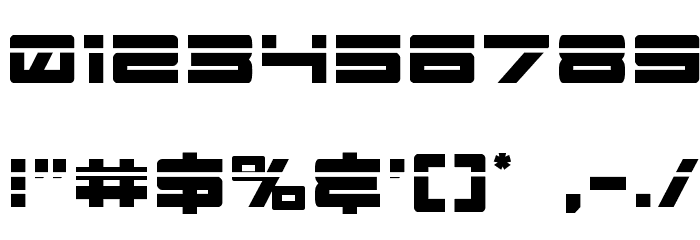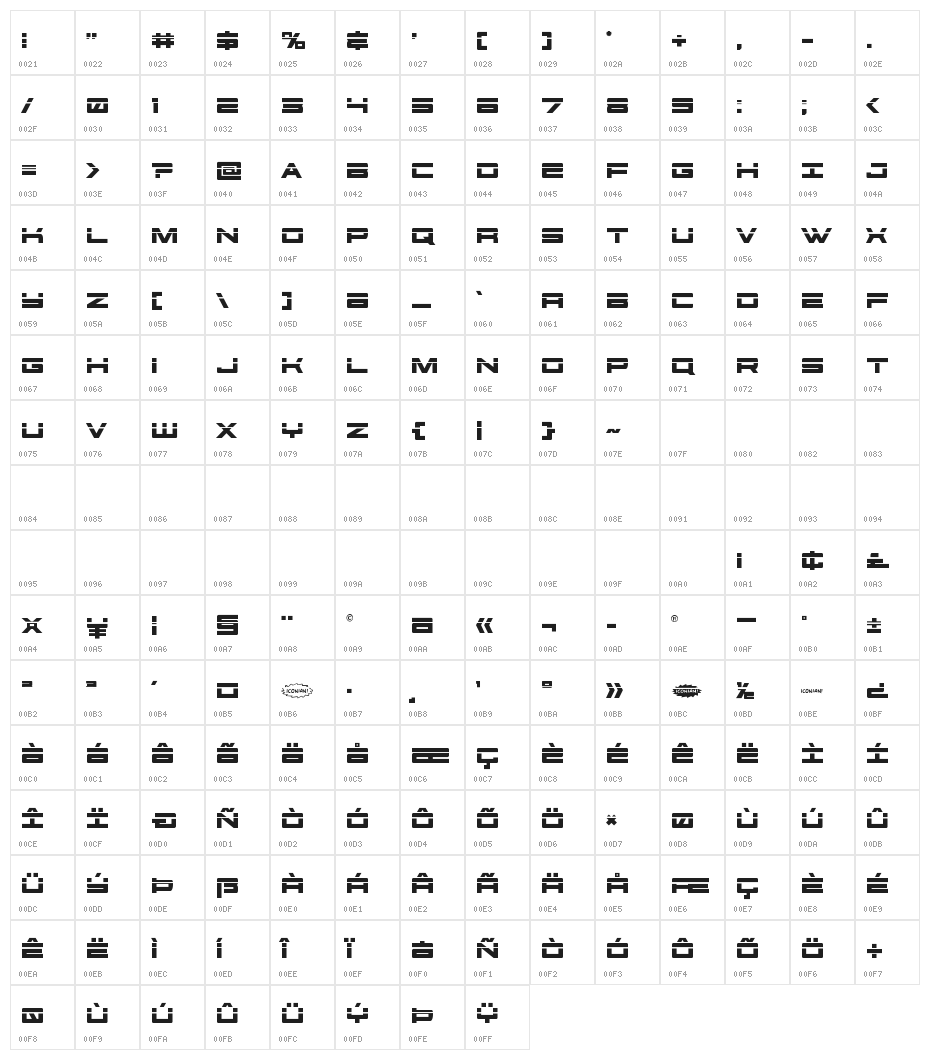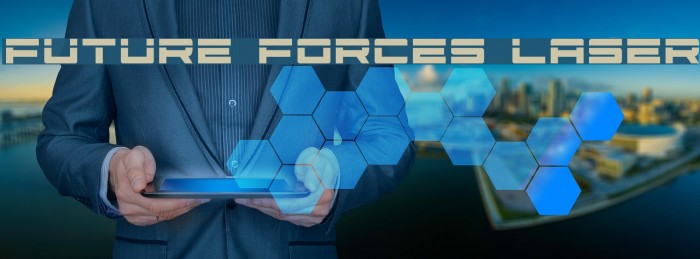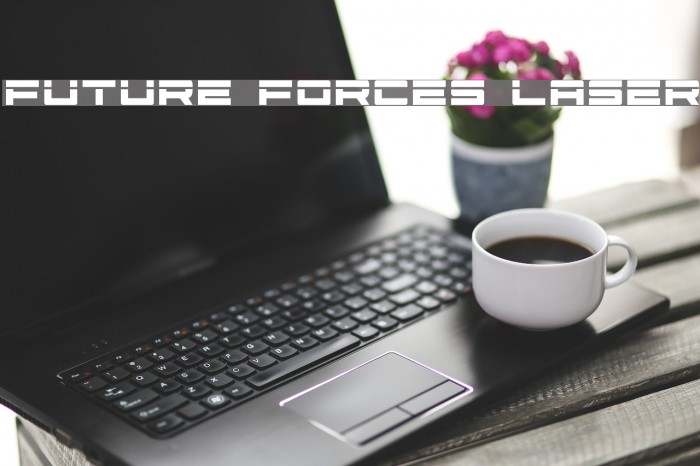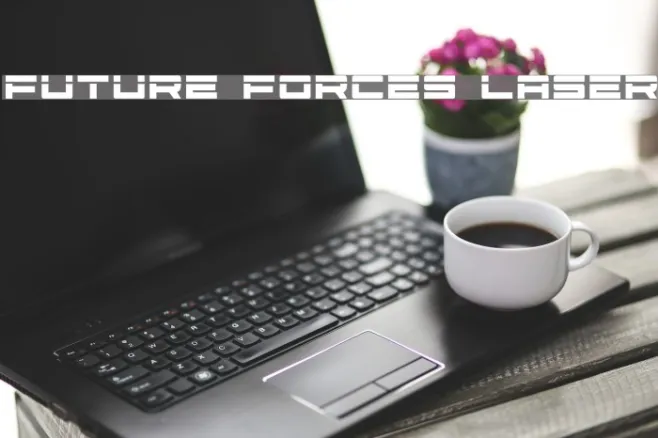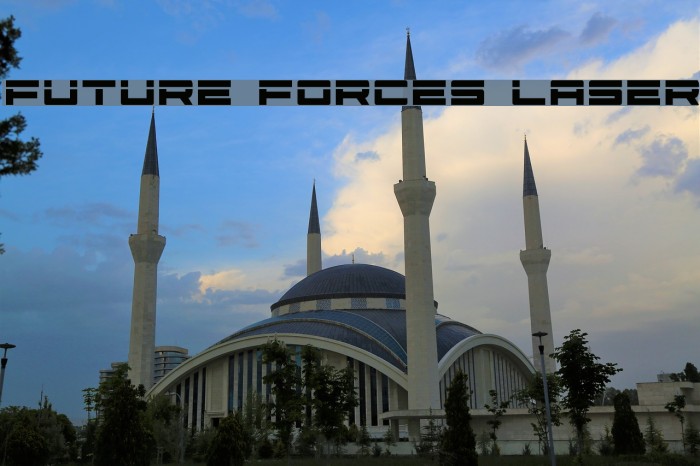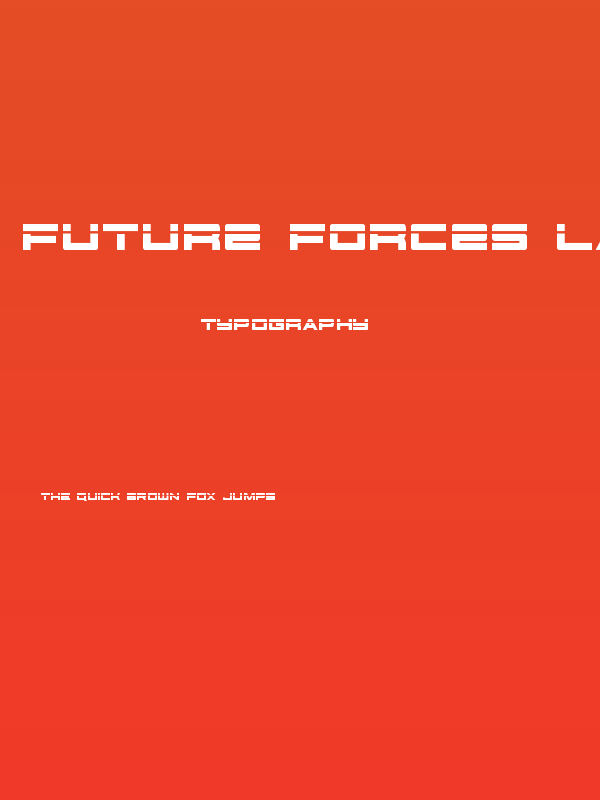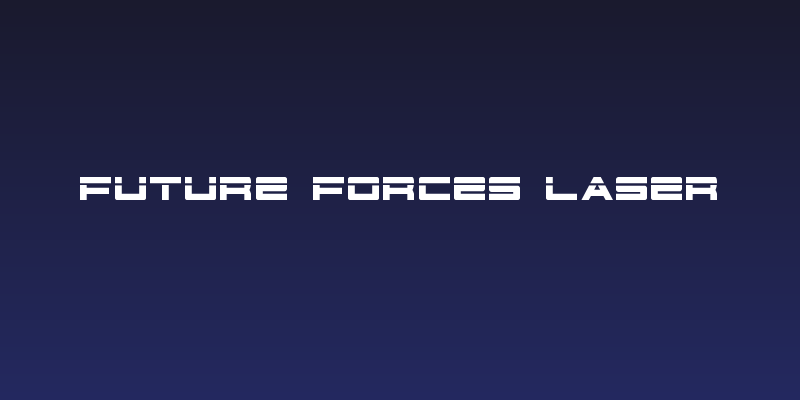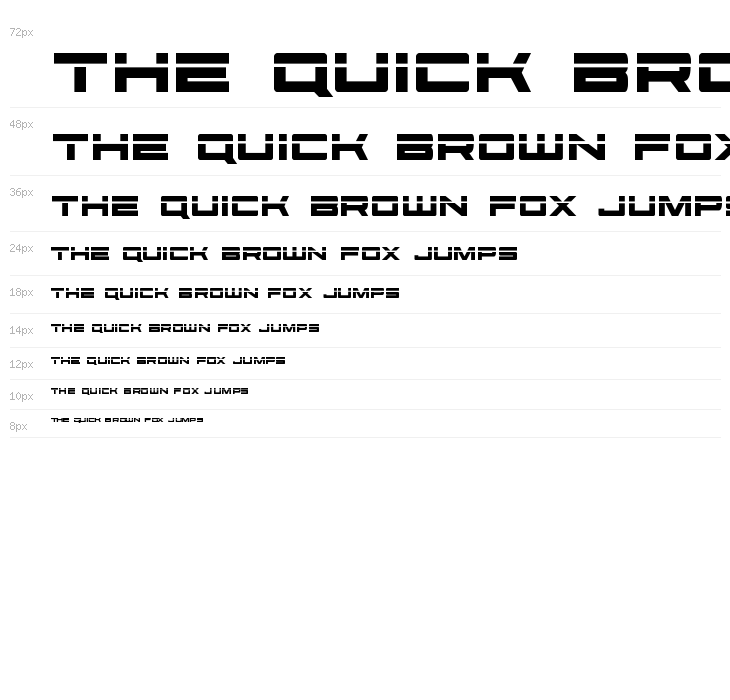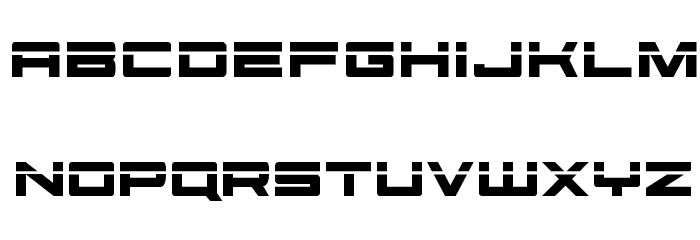
Future Forces Laser Font
Future Forces Laser Description
This font features a futuristic and angular design, characterized by sharp edges and geometric shapes. The uppercase and lowercase letters maintain a consistent style, with a bold and impactful appearance. The numerals and special characters follow the same design principles, ensuring uniformity across all glyphs. The font's unique style is reminiscent of digital or sci-fi themes, making it ideal for projects that require a modern and technological aesthetic. Its boldness and distinctive look make it suitable for attention-grabbing headlines or branding materials.
| Proposed Projects | Ideal for sci-fi themed posters, video game titles, technology branding, and futuristic event flyers. |